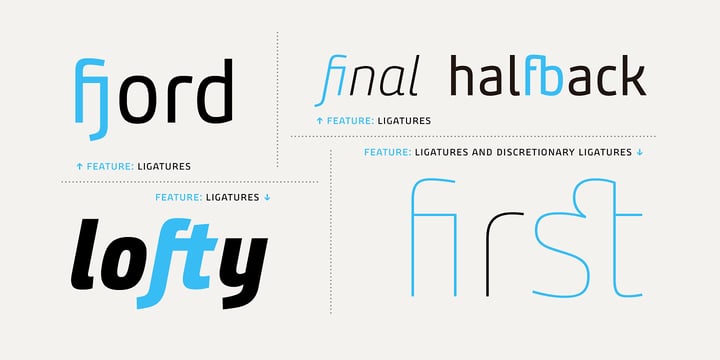
Bunday Clean™
by Buntype
The Bunday Clean Font Family was designed by Petra Niedernolte, Ralf Sander and published by Buntype. Bunday Clean contains 34 styles and family package options.
Bunday Clean is a minimalist and friendly font family with different moods. It drops everything unnecessary like spurs and ears and appears crisp and contemporary with a slightly squarish touch. Like the other members of the superfamily (Bunday™ Sans and Bunday™ Slab), Bunday Clean provides uprights, a second set of styles with characters that reference handwritten cursive. These curvy styles give words a distinct look and are especially attractive for use in display applications and logotype design. Bunday™ Clean is space-saving and creates a homogenous text color with good legibility. The font was manually hinted and contains extensive handcrafted kerning tables to ensure perfect appearance in all media. It ships with 9 standard, 9 upright, and the corresponding italic styles from a considerably thin hairline to a quite thick heavy. It supports at least 99 languages and provides OpenType® features for ligatures, alternative glyphs, localized forms, and much more. Feature Summary*: -4 Moods: Normal, Upright, Italic and Upright Italic -9 weights: Hair, Light, Thin, SemiLight, Regular, SemiBold, Bold, ExtraBold and Heavy -Supports at least 99 Languages incl. eastern european -Overall width: Narrow or Space-Saving -Advanced f- ligature set including fb -Discretionary s- and c- ligatures -Alternative Characters: a, e, f, g, l, t, y, A, E, F, L, and more -Capital German Eszett -Extra characters with Polish Kreska -Catalan Punt Volat -More than 570 characters per font * Some features may only be available in OpenType®-savvy applications Please, take a look at the other Bunday superfamily members: Bunday™ Sans Bunday™ Slab